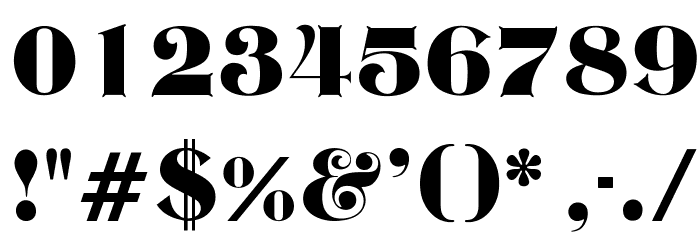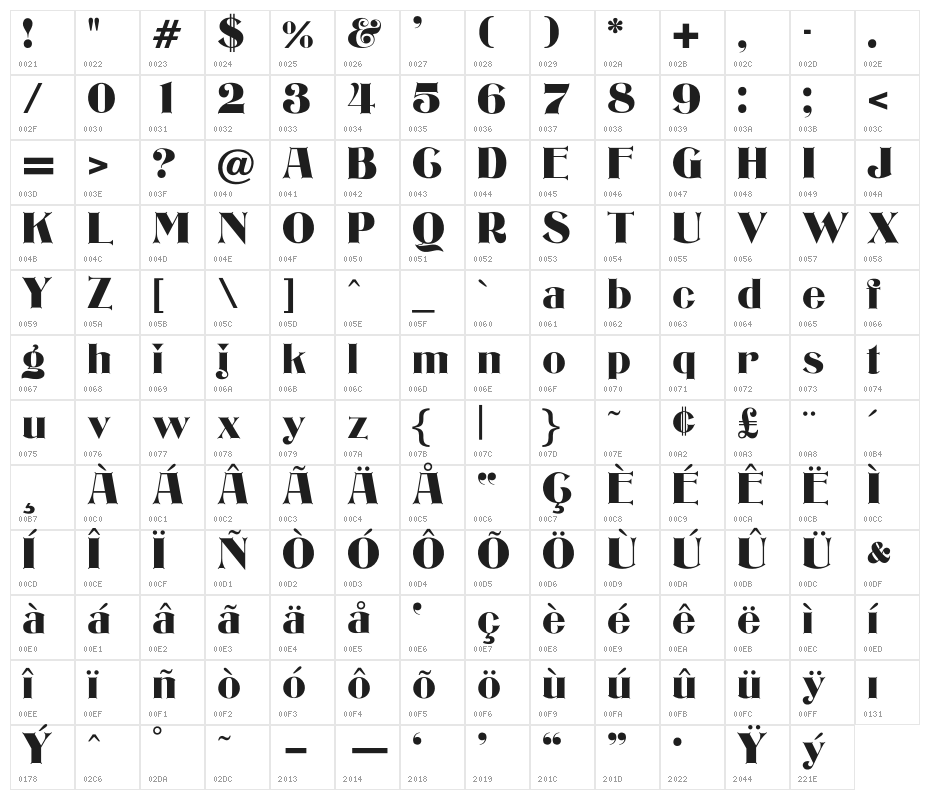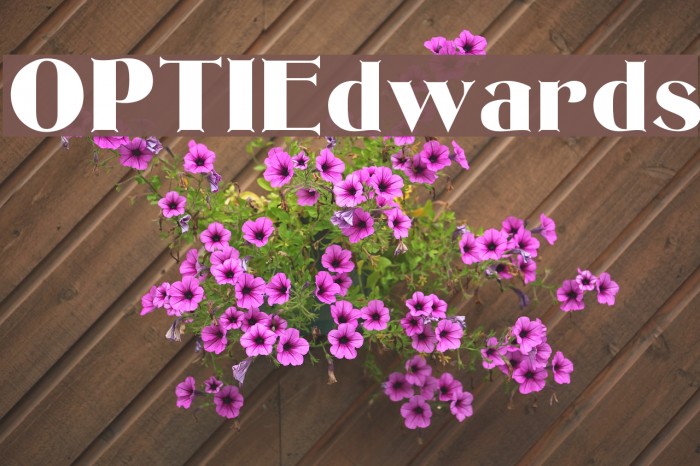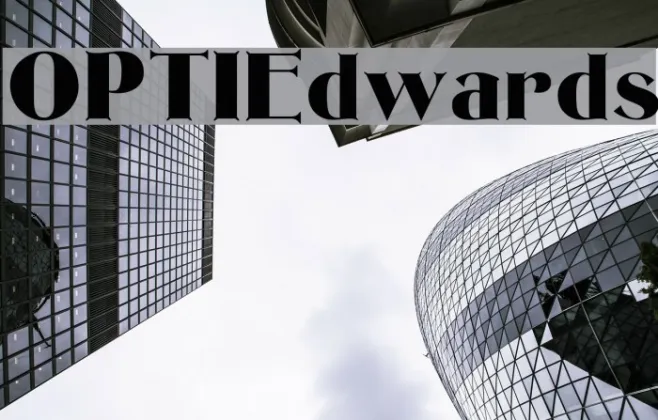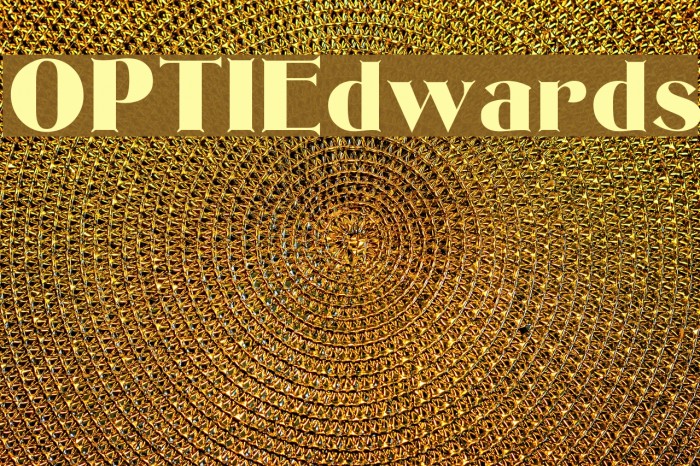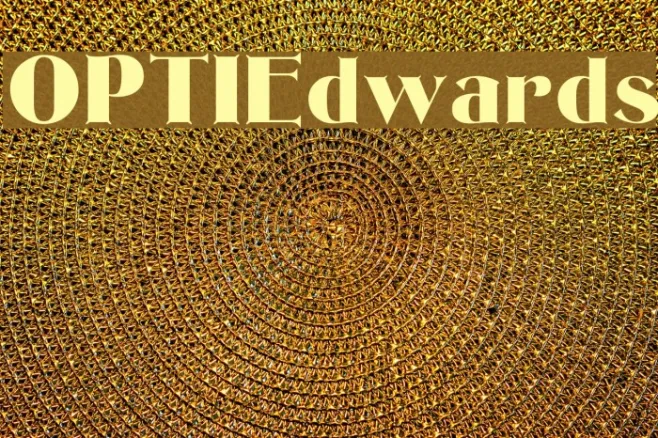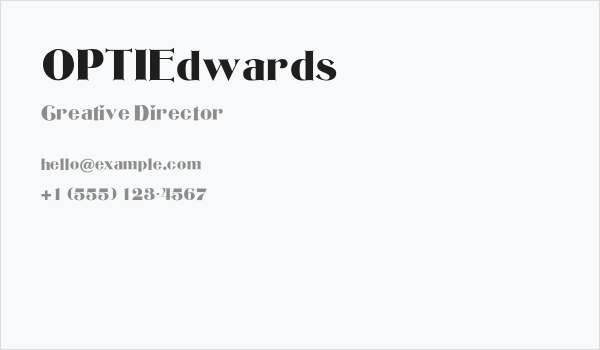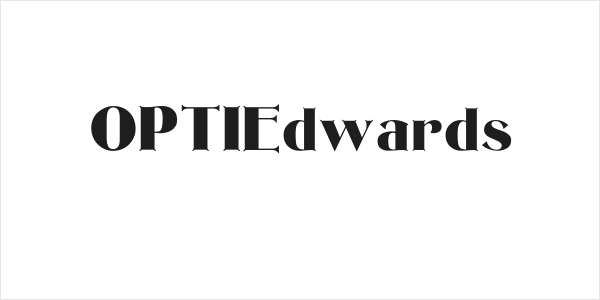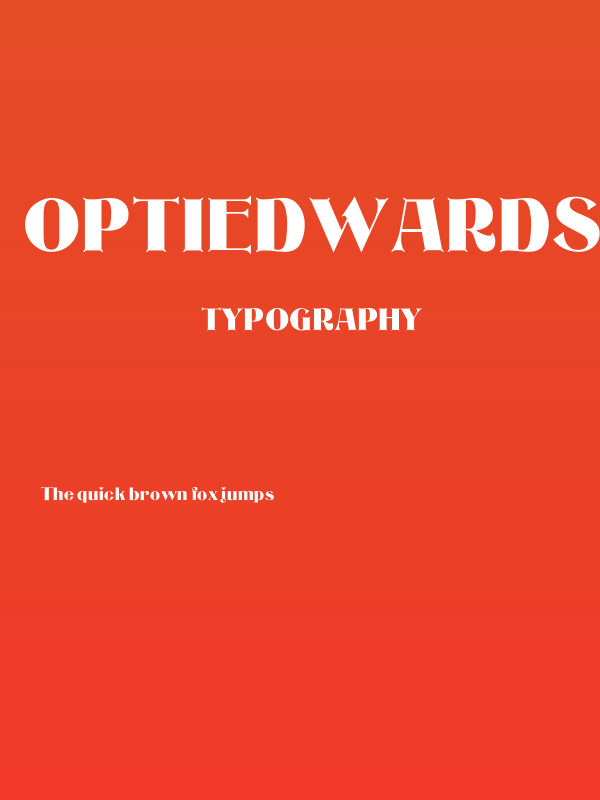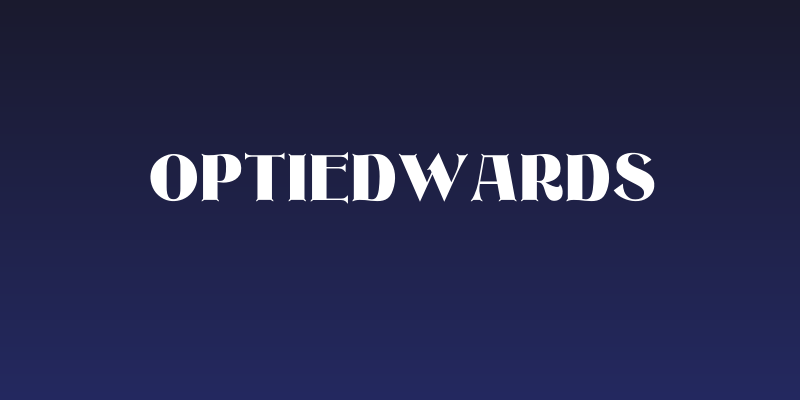
OPTIEdwards Font
OPTIEdwards Description
This font exhibits a bold and dramatic style with strong, thick strokes and sharp serifs. The uppercase letters are characterized by their angular and pointed serifs, giving them a distinct and authoritative appearance. The lowercase letters maintain a consistent weight, with some featuring unique flourishes that add a touch of elegance. The numerals are equally bold, ensuring they stand out in any design. The special characters are designed to complement the overall style, maintaining the same boldness and sharpness. This font is ideal for making a statement, with its high contrast and striking presence.
| Proposed Projects | Ideal for branding, posters, headlines, and any project requiring a strong, impactful typeface. |